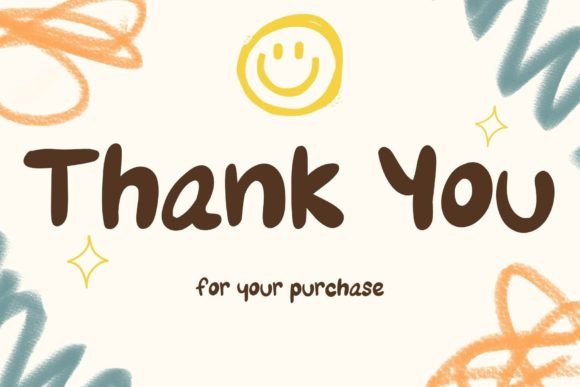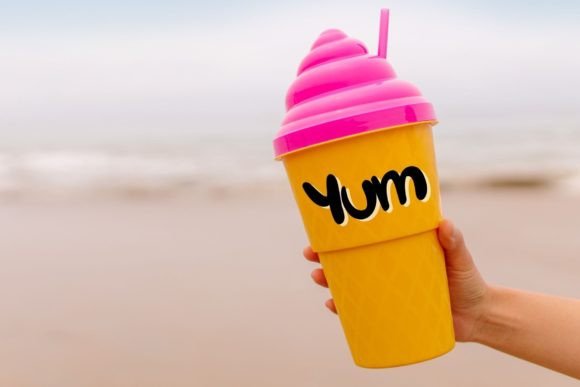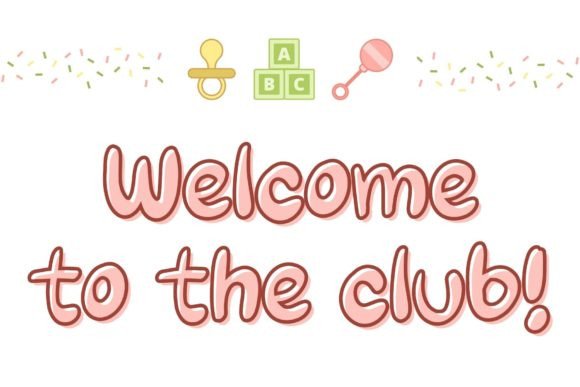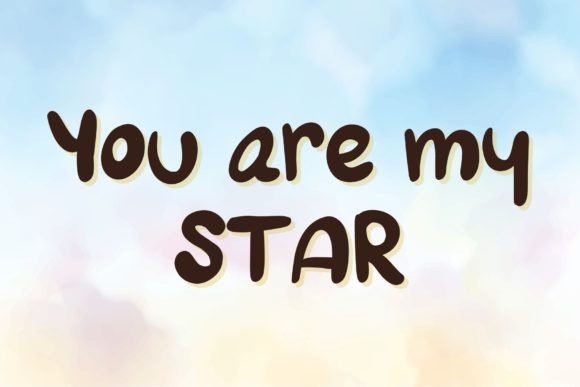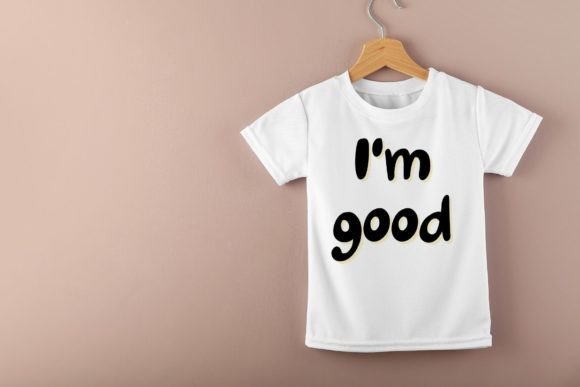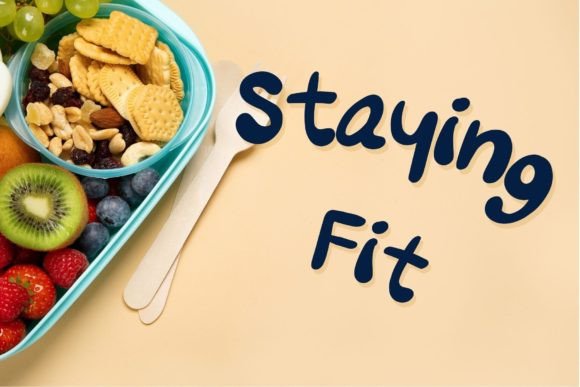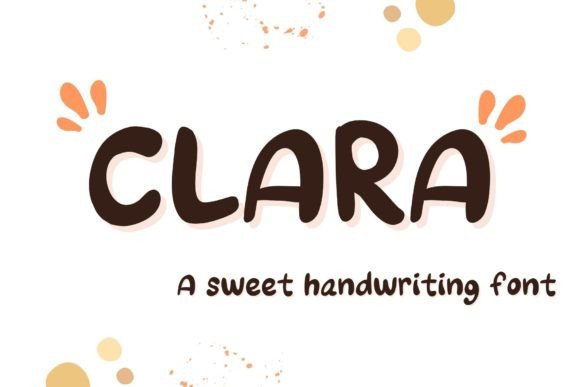
Discover the Charm of Clara Font: A Sweet and Friendly Handwritten Delight
Are you on the hunt for a font that can add a personal touch to your designs? Look no further than Clara Font, a sweet and friendly handwritten font that’s perfect for a wide range of creative projects. With its natural and unique style, Clara Font is incredibly versatile, making it an excellent choice for designers and crafters alike.
Handwritten fonts have a way of adding a personal touch to any design. They evoke a sense of warmth, friendliness, and approachability that’s hard to replicate with more formal fonts. Clara Font is no exception, with its flowing lines and organic feel that make it perfect for designs that need a human touch.
What Makes Clara Font So Special?
So, what sets Clara Font apart from other handwritten fonts on the market? For starters, its natural and unique style makes it incredibly fitting for a large pool of designs. Whether you’re working on a logo, a poster, a website, or a social media graphic, Clara Font is sure to add a touch of personality and whimsy. The only limit is your imagination!
One of the best things about Clara Font is its incredible versatility. Here are just a few ideas to get you started:
- Branding and Logos: Use Clara Font to create a unique and memorable logo that reflects your brand’s personality.
- Posters and Flyers: Add a touch of whimsy and fun to your posters and flyers with Clara Font’s playful style.
- Web Design: Use Clara Font to create a friendly and approachable website that feels like a warm hug.
- Social Media Graphics: Add a personal touch to your social media graphics with Clara Font’s unique and eye-catching style.
- Crafting and Scrapbooking: Use Clara Font to add a personal touch to your crafting and scrapbooking projects, such as journal cards, tags, and more.
Why Designers and Crafters Love Clara Font
So, why do designers and crafters love Clara Font so much? Here are just a few reasons:
- Easy to Read: Clara Font is incredibly easy to read, even at small sizes.
- Highly Versatile: Clara Font can be used for a wide range of designs, from formal to informal.
- Unique and Eye-Catching: Clara Font’s unique style makes it stand out from more traditional fonts.
- Perfect for Branding: Clara Font is perfect for creating a consistent brand identity across multiple platforms.
Get Creative with Clara Font
Ready to unleash your creativity with Clara Font? Here are a few tips to get you started:
- Experiment with Colors: Try pairing Clara Font with different colors and textures to create a unique look.
- Play with Sizes: Experiment with different font sizes to create visual interest and hierarchy.
- Add Graphics: Combine Clara Font with graphics and illustrations to create a visually appealing design.
In conclusion, Clara Font is a sweet and friendly handwritten font that’s perfect for designers and crafters looking to add a personal touch to their designs. With its natural and unique style, Clara Font is incredibly versatile and can be used for a wide range of creative projects. So why wait? Download Clara Font today and unleash your creativity!